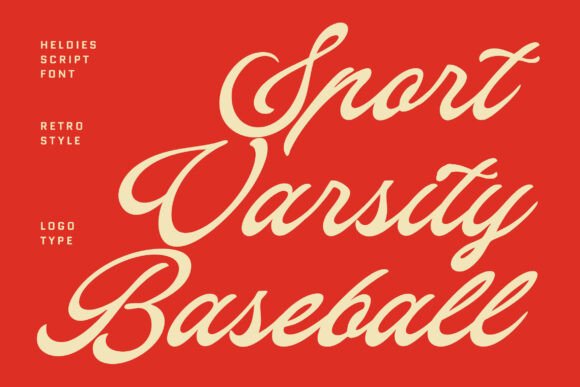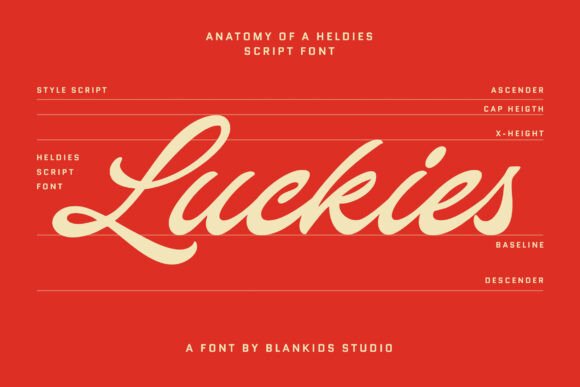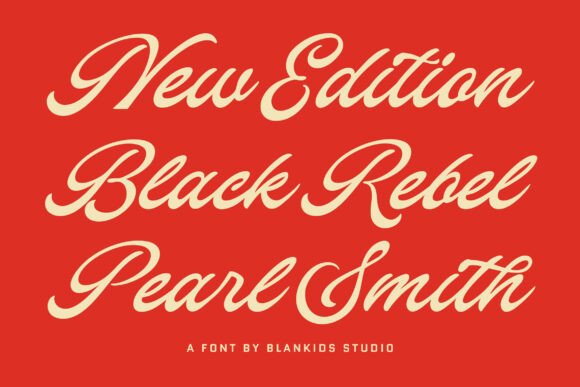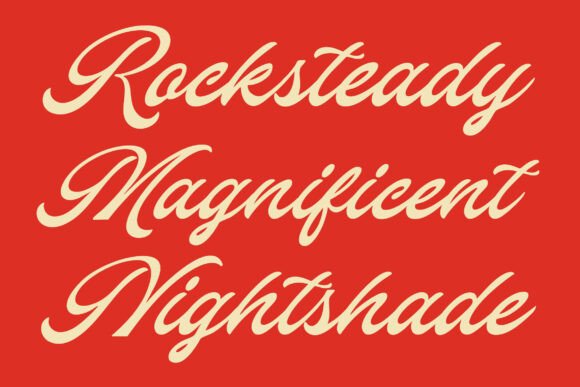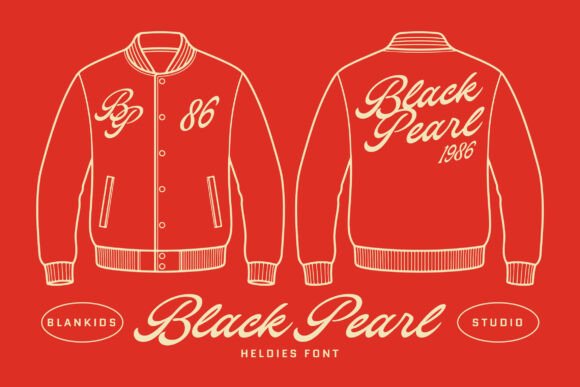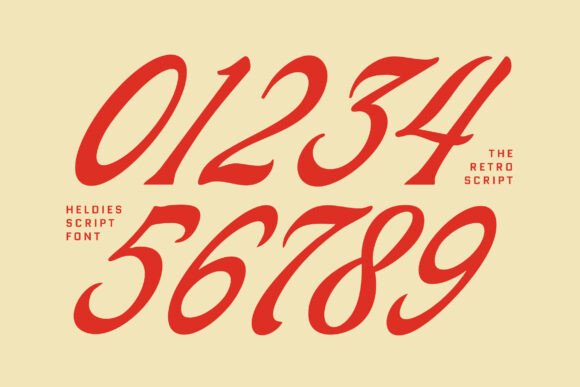
Introduction to Heldies Font
Have you ever stumbled upon a vintage sign or an old photograph that sparks a wave of creativity within you? That’s exactly what happened to many designers when they first laid eyes on the Heldies Font. This stunning script font is a masterclass in retro charm, blending classic elegance with a modern twist that’s perfect for a wide range of creative projects.
Whether you’re working on a branding campaign, designing a logo, or creating a social media post, Heldies Font is a valuable addition to your design arsenal. Its smooth curves, flowing strokes, and high-quality design make it a must-have for any creative project. And the best part? It’s available for free download, allowing you to incorporate it seamlessly into your designs without worrying about licensing fees.
With its transparent background and clean readability, Heldies Font is the perfect design resource for designers who want to add a touch of authenticity to their work. From digital projects to print materials, this versatile font is sure to bring a touch of warmth and personality to your designs.
Key Features of Heldies Font
- High-quality font with a unique, creative design perfect for various projects
- Transparent background, making it ideal for use on images and backgrounds with complex designs
- Designed to be scalable, ensuring crisp and clear readability at various resolutions and sizes, up to 1024×1024 pixels
- Includes a wide range of characters, including uppercase and lowercase letters, numbers, and punctuation marks
- Perfect for use in creative projects, such as graphic design, digital art, and web development, where a unique and high-quality font is essential
Honest Review: Heldies Font
I recently had the chance to work with the Heldies Font, and I must say it’s been a game-changer for my creative projects. This free download has exceeded my expectations in terms of quality and versatility.
- ✨ High-quality design: The Heldies Font is beautifully crafted, with intricate details that add a touch of elegance to any project.
- ✨ Versatile: This font can be used for a wide range of creative projects, from logos to brochures, and even websites.
- ✨ Easy to use: The font is available in a transparent background, making it easy to work with and combine with other design elements.
However, I did encounter a few limitations while working with the Heldies Font. These include:
- ⚠️ Limited font sizes: While the font is available in various sizes, I found that it doesn’t work well with very small or very large text sizes.
- ⚠️ Not suitable for all design styles: The Heldies Font has a very unique and ornate design, which may not be suitable for all design styles or projects.
Overall, I’m extremely impressed with the Heldies Font. Its high quality, versatility, and ease of use make it a valuable resource for any designer. While it may have some limitations, I believe it’s a must-have for any creative project.
Tips for Getting the Most Out of Heldies Font
To maximize the Heldies Font’s potential, experiment with different font sizes, colors, and combinations. This will help you achieve the desired look for your creative project.
Common Use Cases for Heldies Font
The Heldies Font is ideal for various design applications, including logos, brochures, and social media graphics. Its high-quality design and transparent background make it a valuable asset for any creative project.